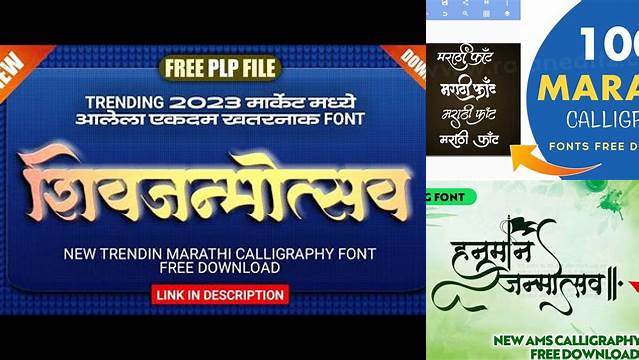
Marathi Calligraphy Font: Free Downloads & Usage Tips
Hey guys! Are you looking to spice up your Marathi writing with some beautiful calligraphy fonts? You've come to the right place! In this article, we're diving deep into the world of Marathi calligraphy fonts, where to find them for free, and how to use them to create stunning designs. So, grab your virtual pen and let's get started!
Why Use Calligraphy Fonts for Marathi Writing?
First off, let's talk about why you should even bother with calligraphy fonts. Marathi, like many Indian languages, has a rich and elegant script. Calligraphy fonts enhance this beauty, adding a touch of sophistication and artistry to your text. Whether you're designing wedding invitations, creating social media graphics, or working on a branding project, the right calligraphy font can make all the difference.
Calligraphy fonts can evoke a sense of tradition and culture. Imagine using a beautifully flowing font for a Diwali greeting card or a traditional Marathi wedding invite. It instantly connects with the audience on an emotional level. Moreover, calligraphy adds a personal touch. In a world dominated by digital uniformity, using a distinctive font can help your work stand out and capture attention. Think about how a well-crafted logo using a unique Marathi calligraphy font can make a brand instantly recognizable and memorable.
Furthermore, calligraphy fonts are versatile. You can find fonts that range from the classically elegant to the modern and quirky. This means you can adapt your typography to suit any project, whether it’s a formal announcement or a casual social media post. By choosing the right font, you can effectively communicate the tone and message you want to convey. For example, a light and airy font might be perfect for a summer festival poster, while a bold and ornate font could be ideal for a historical drama.
Finally, using calligraphy fonts can also be a way to preserve and promote the Marathi language and culture. By showcasing the beauty of the script, you encourage others to appreciate and use it. This is particularly important in today’s globalized world, where regional languages often face the threat of being overshadowed by dominant languages. Using calligraphy is a way of keeping the artistic heritage alive and relevant.
Where to Find Free Marathi Calligraphy Fonts
DaFont: DaFont is another popular platform where you can find a huge variety of fonts, including some Marathi calligraphy styles. While not all fonts on DaFont are free for commercial use, many are free for personal use, so be sure to check the license before using them in your projects. DaFont’s extensive library is categorized by style, making it easy to find what you’re looking for. You can also preview the fonts with your own text to see how they will look in your designs. With its vast collection, DaFont is a great place to start your search for the perfect Marathi calligraphy font, just remember to respect the font licenses.
BeFonts: BeFonts offers a curated selection of free fonts, including some elegant Marathi calligraphy options. This site focuses on quality over quantity, ensuring that the fonts they offer are well-designed and visually appealing. BeFonts also provides mockups and previews that showcase how the fonts can be used in various design projects, giving you inspiration and ideas for your own creations. Their selection is constantly updated, so it’s worth checking back regularly to see what new Marathi calligraphy fonts they’ve added.
Creative Fabrica (Freebies Section): Creative Fabrica often has a section dedicated to free fonts and resources. While it's a subscription-based service, they regularly offer freebies, including calligraphy fonts. Creative Fabrica is known for its high-quality design assets, and their freebies are no exception. By checking their freebies section regularly, you can often find premium fonts that are available for a limited time. This is a great way to build your font library with professional-grade Marathi calligraphy fonts without spending any money. Just be sure to download the fonts you like quickly, as the freebies change frequently.
- Get Feedback: Ask others for their opinion on the font choice. A fresh perspective can be invaluable.
So there you have it! A comprehensive guide to finding and using free Marathi calligraphy fonts. With the right font and a little creativity, you can create stunning designs that celebrate the beauty of the Marathi language. Now go forth and make some typographic magic!